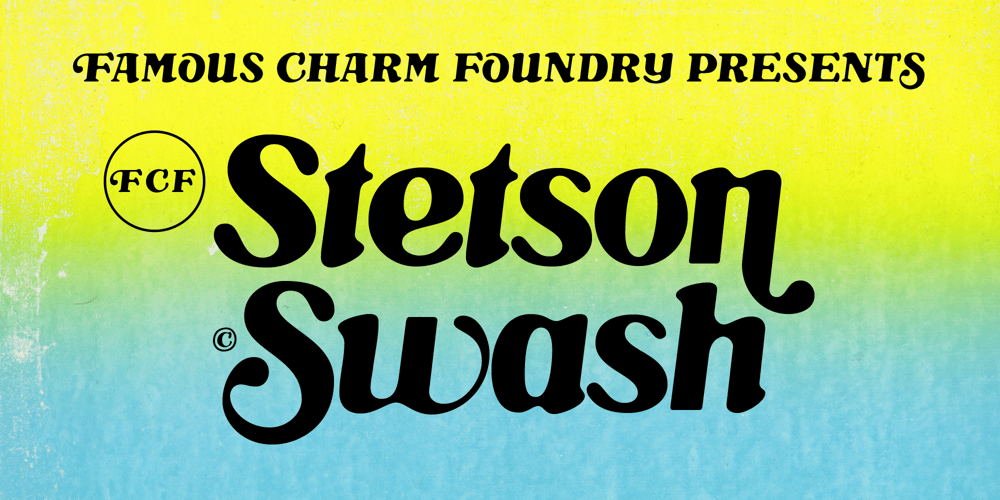
FCF Stetson Swash Font Family was designed by Thomas Bradley and published by Famous Charm. FCF Stetson Swash contains 1 styles and family package options. FCF Stetson Swash is an inky, high-contrast, display face with smooth sanded-down serifs, with a casual lean and swashy alternates for those partial to a bit of flair.We like to think that Stetson grew up in rural Texas in the late sixties, but spent a lot of time visiting his aunt Cooper and uncle Bookman in the big city, and learned about psychedelics at a young age.